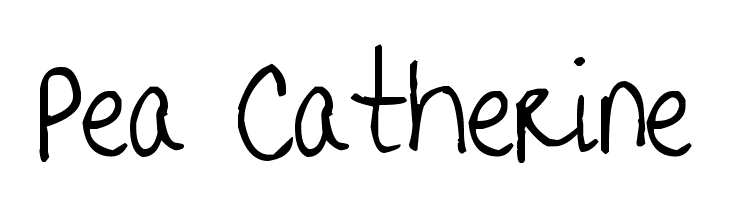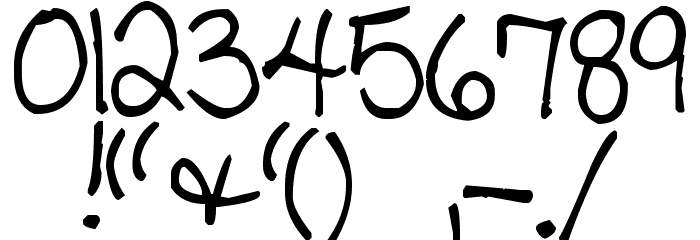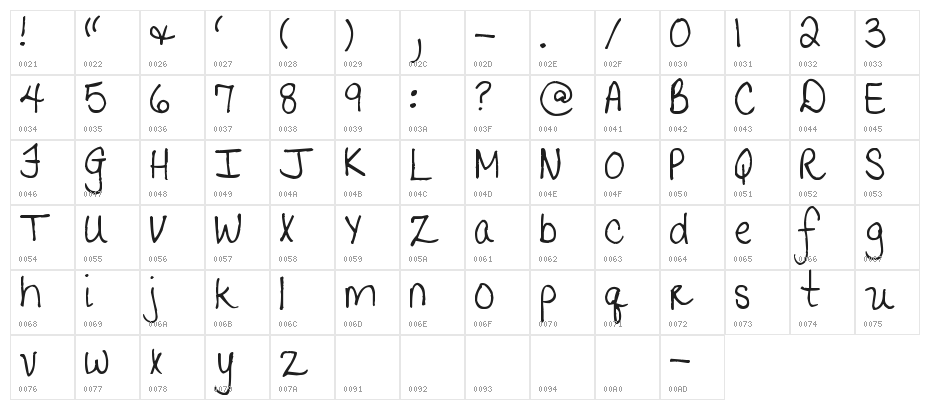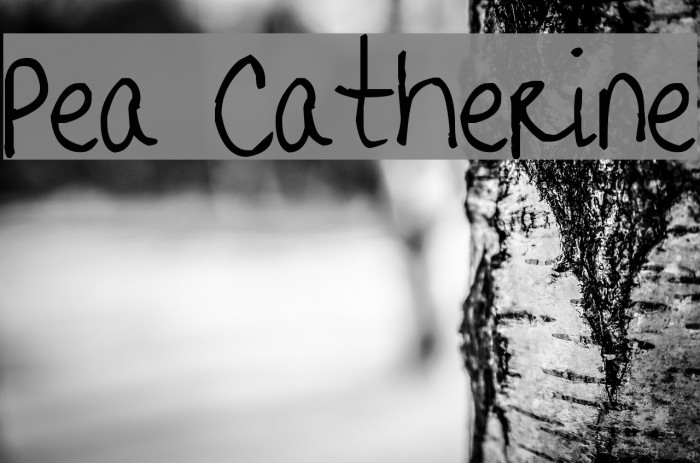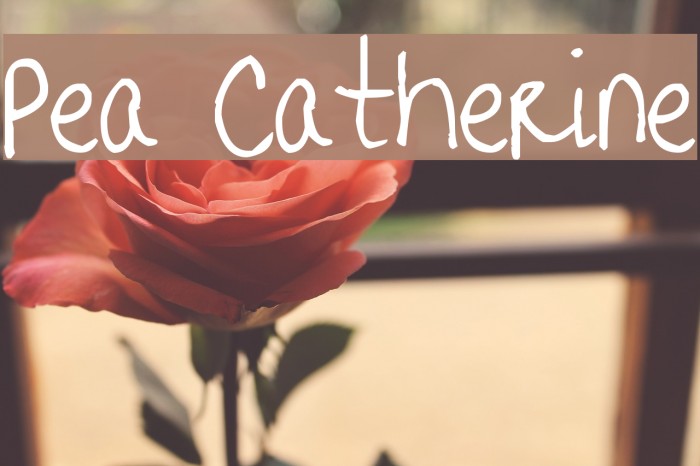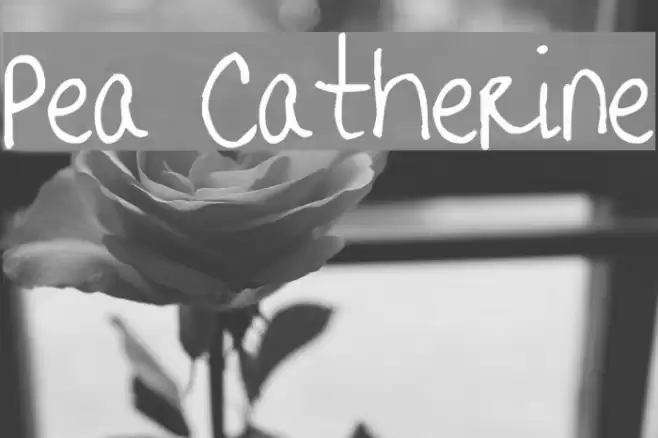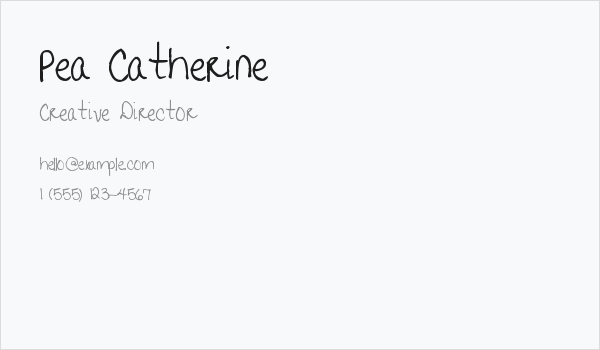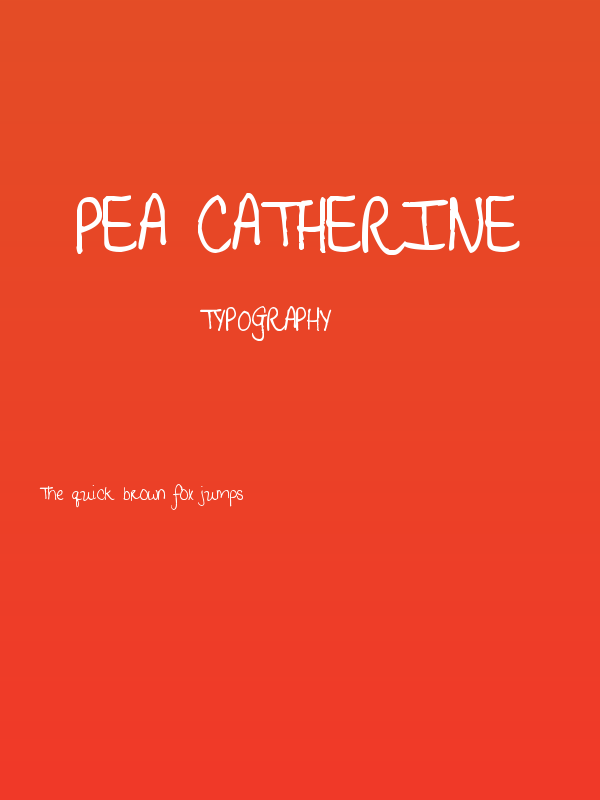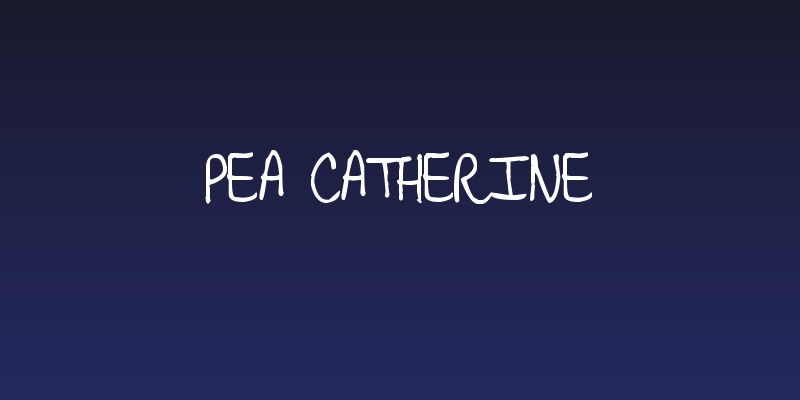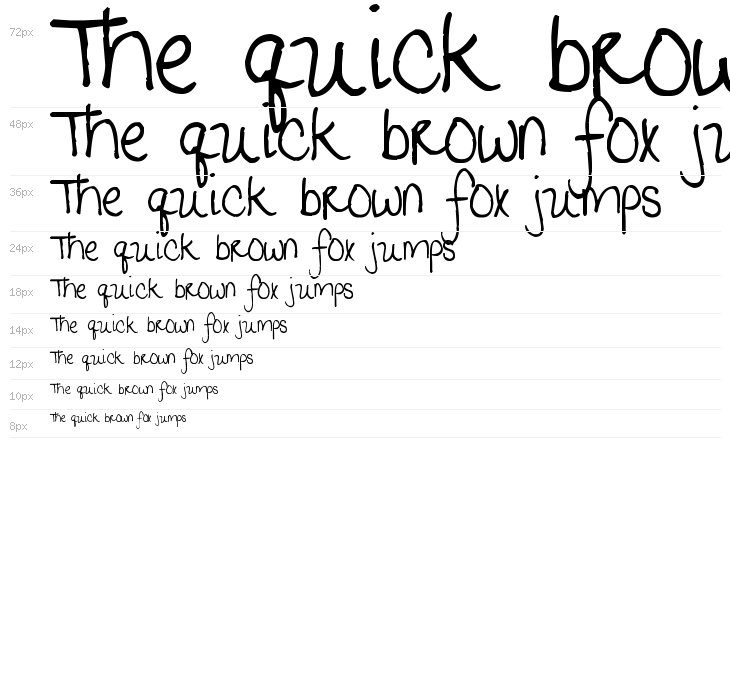
Pea Catherine Font
Pea Catherine Description
This font exudes a playful and informal vibe, characterized by its handwritten style. The letters are slightly irregular, adding a personal touch and charm. The uppercase and lowercase letters maintain a consistent flow, with rounded edges and a casual appearance. The numbers and special characters follow the same style, ensuring a cohesive look across all elements. This font is perfect for projects that require a friendly and approachable feel, such as personal invitations, casual branding, or creative projects.
Overall StyleCasual, Playful
Use CaseHeadlines, Informal Text, Creative Projects
Proposed ProjectsIdeal for personal invitations, casual branding, creative projects, and any design needing a friendly touch.